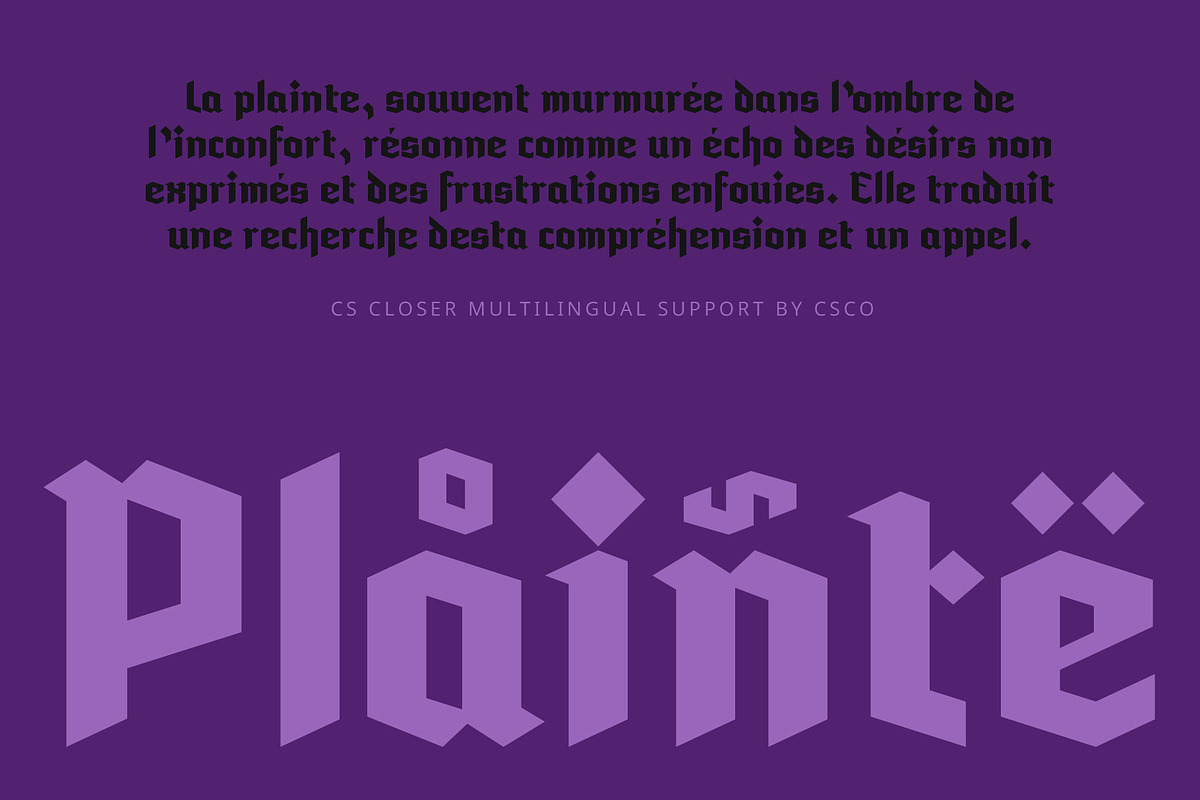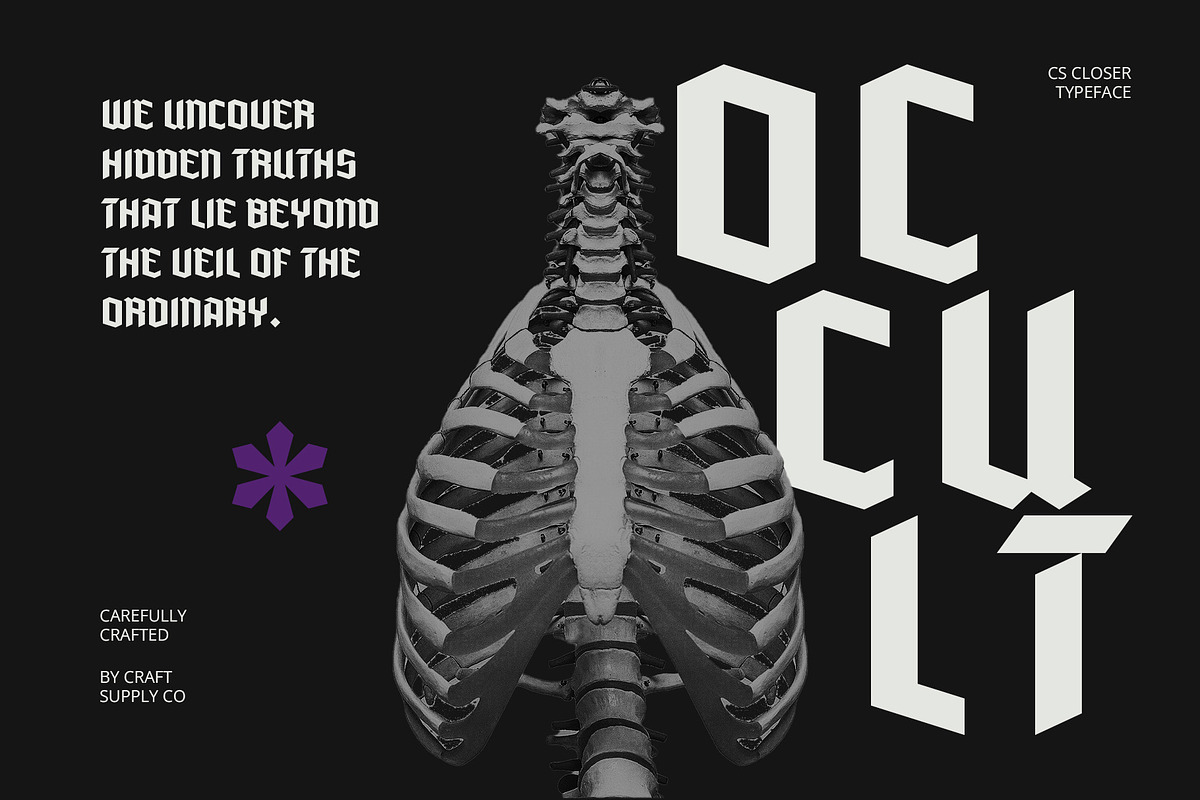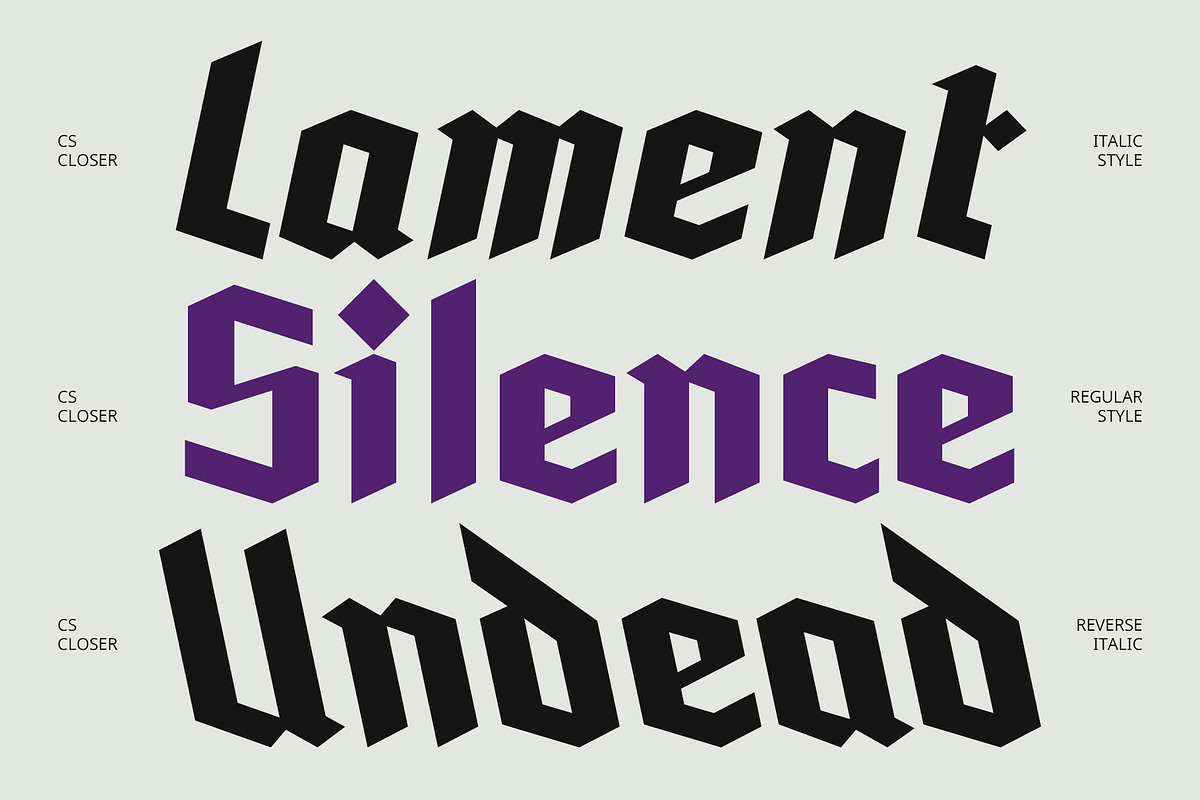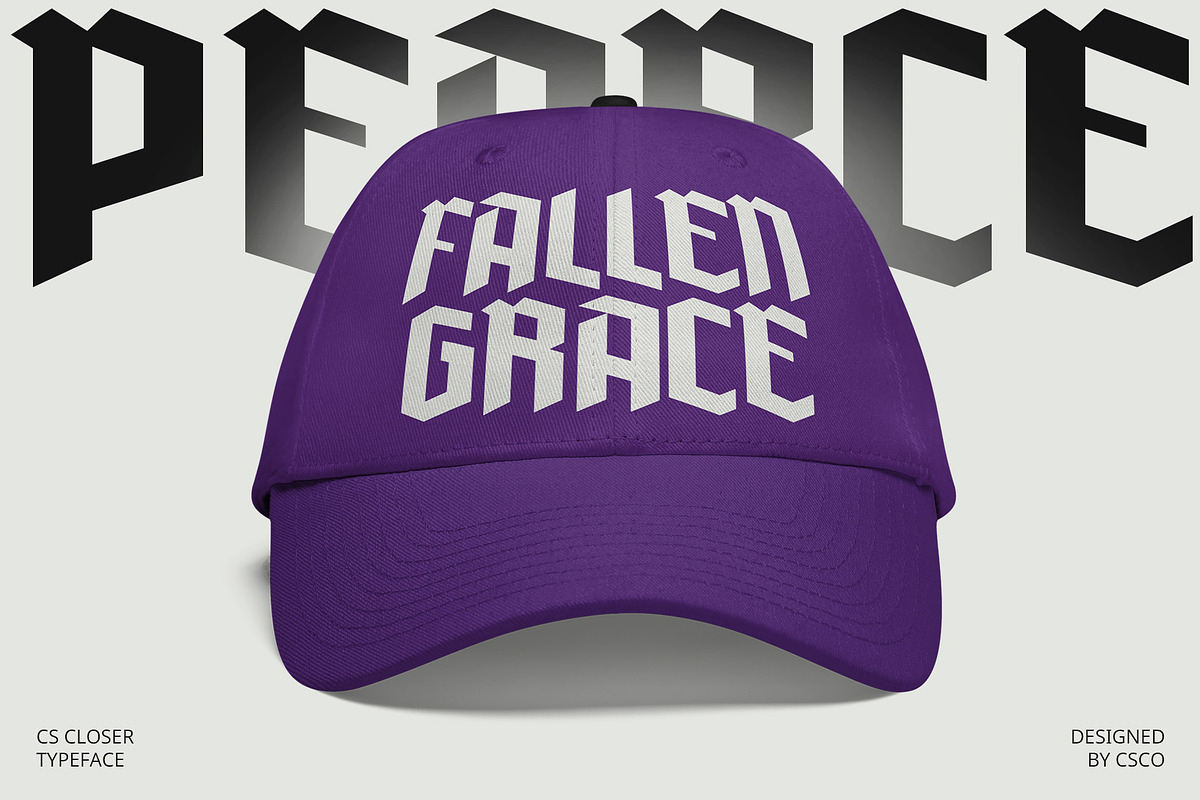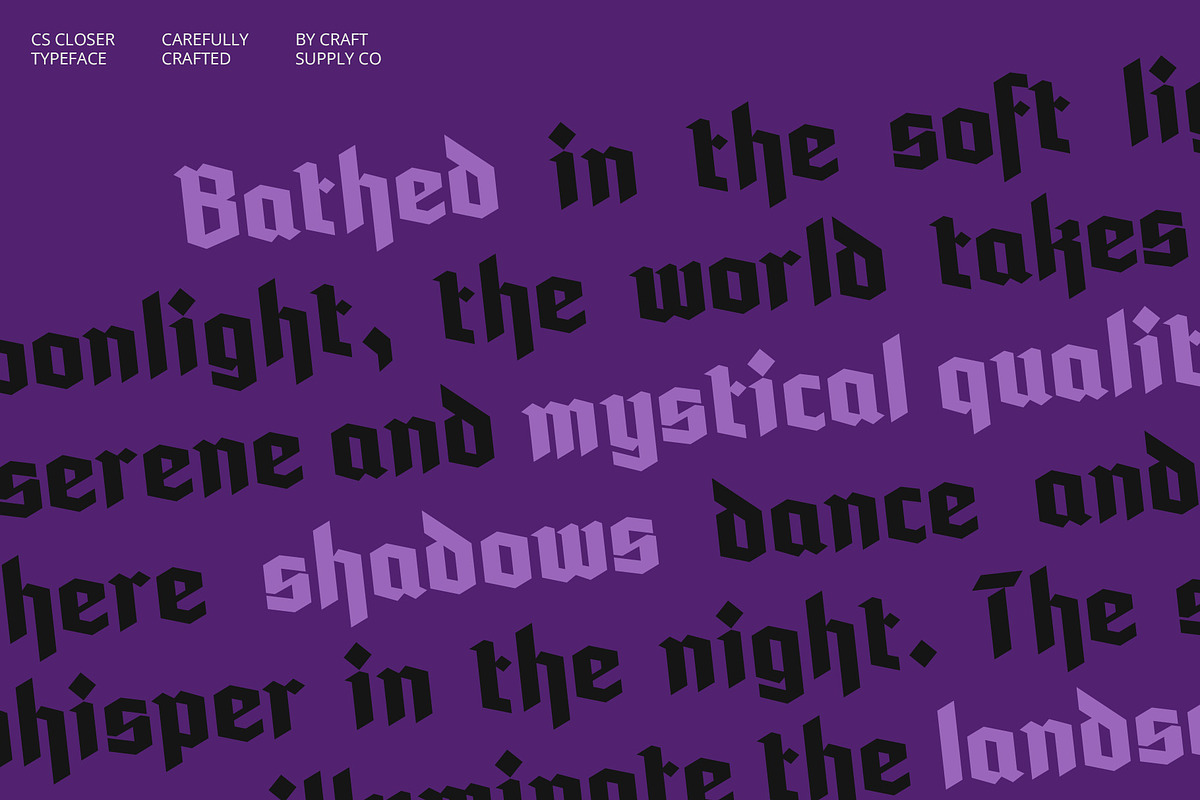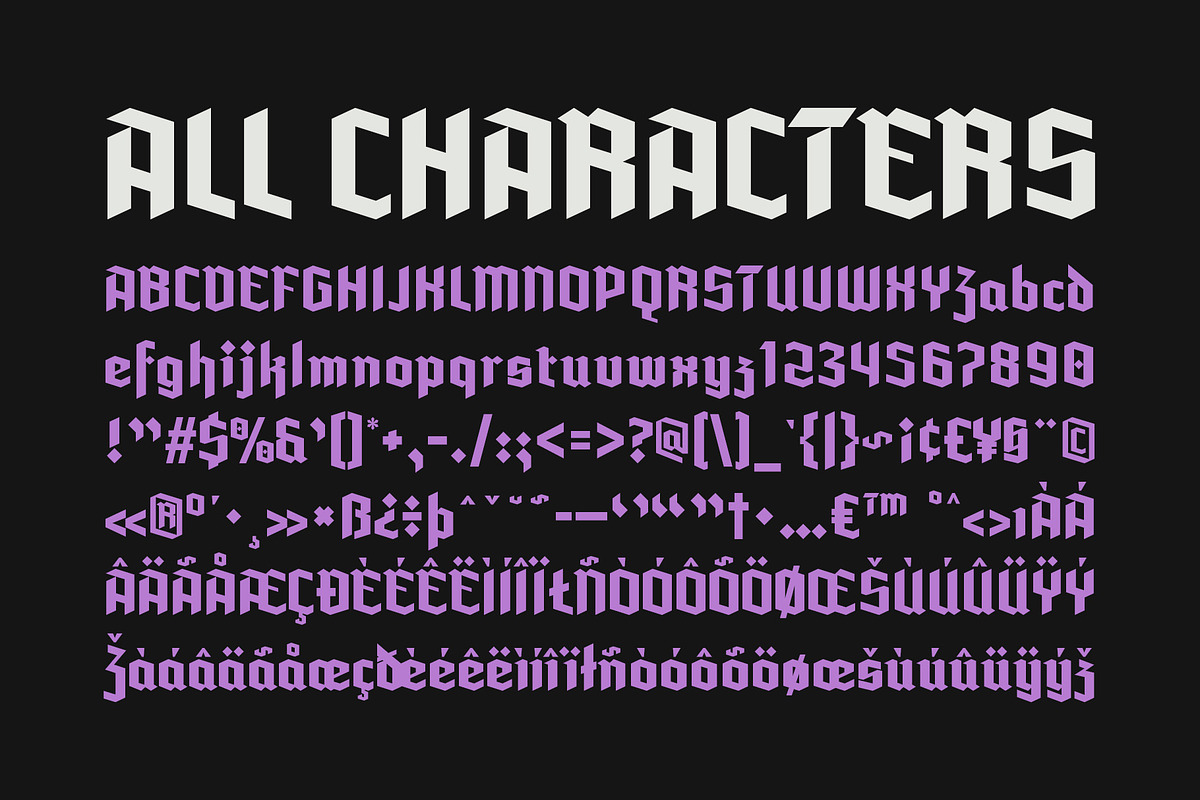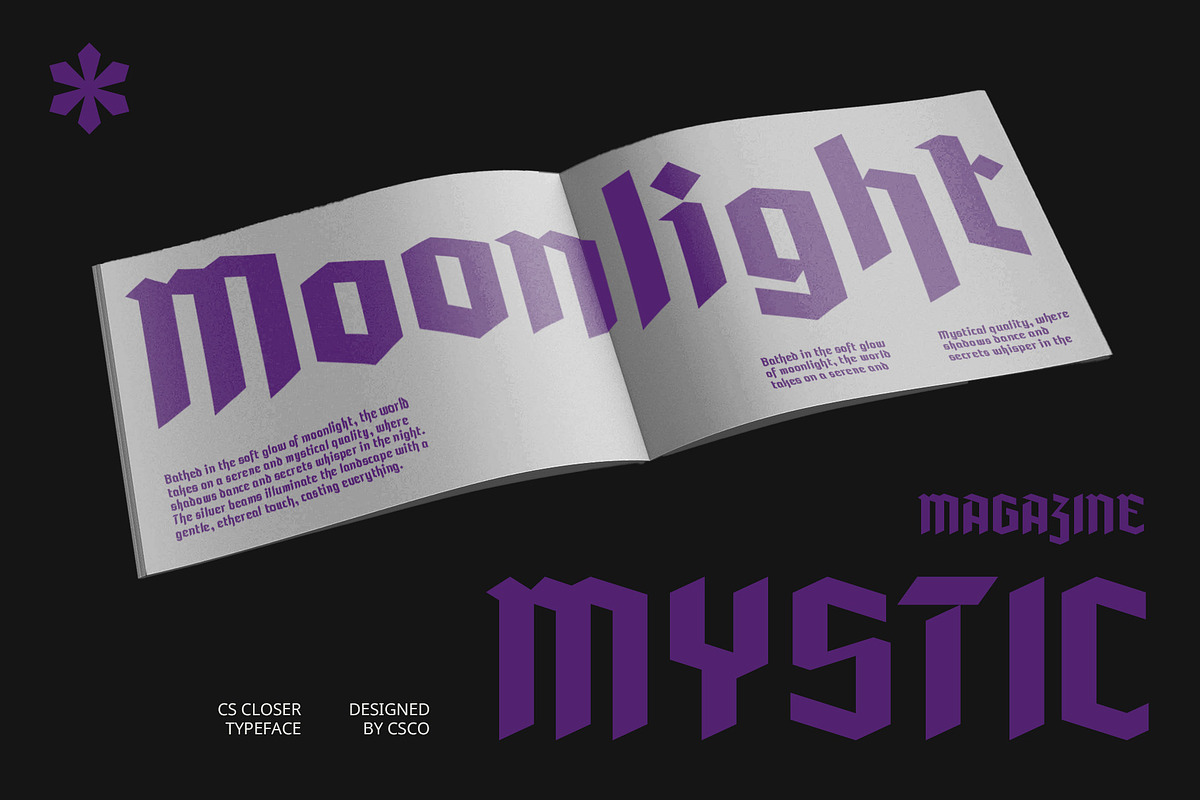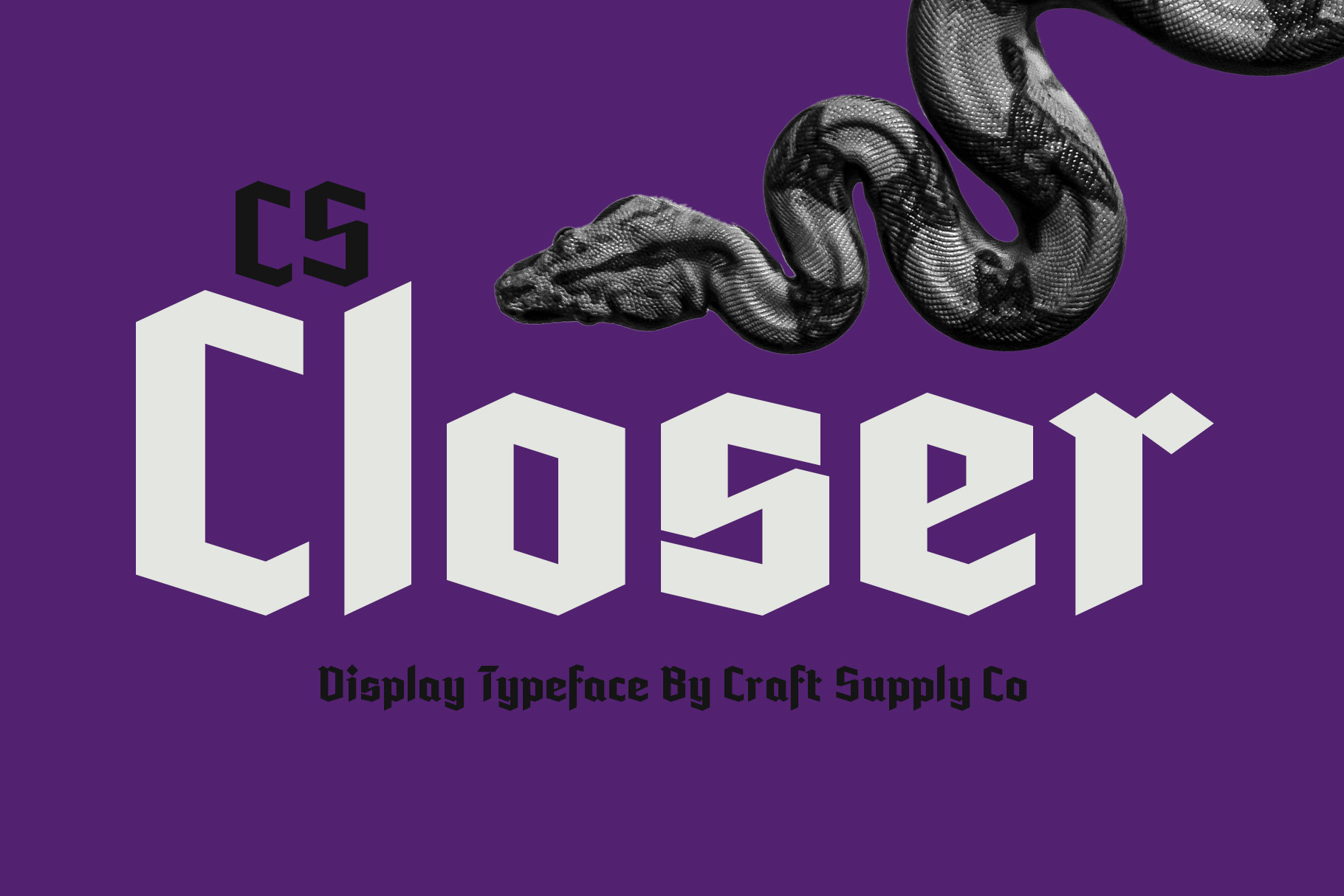
CS Closer – Gothic Font
CS Closer – Gothic Font: Strength and Elegance in Modern Gothic Design
Modern Gothic Display Sans-Serif CS Closer is a modern Gothic display sans-serif font that combines the sharp, clean lines of sans-serif with the dramatic, elegant details of Gothic design. This fusion creates a unique and striking impression of strength and sophistication, blending classic charm with a contemporary edge.
Unique Impression for Headlines and Branding The font’s distinctive Gothic elements and modern clarity make it ideal for headlines, branding, and marketing materials. Its bold presence ensures that it stands out in various design applications, from logos and posters to promotional materials, capturing attention with its strong, characterful visual impact.
Effective in Digital Media CS Closer excels in digital media, where its compelling combination of historical flair and modern simplicity makes it effective for grabbing attention. Whether used for eye-catching headlines or impactful branding, this font delivers a powerful and memorable presence.
Elevate Your Design with Gothic Sophistication Bring a touch of strength and elegance to your projects with CS Closer. Its modern Gothic style ensures your designs are both visually striking and richly sophisticated, perfect for making a bold statement in any medium.
- CS Closer Regular
- CS Closer Italic
- CS Closer Reverse Italic